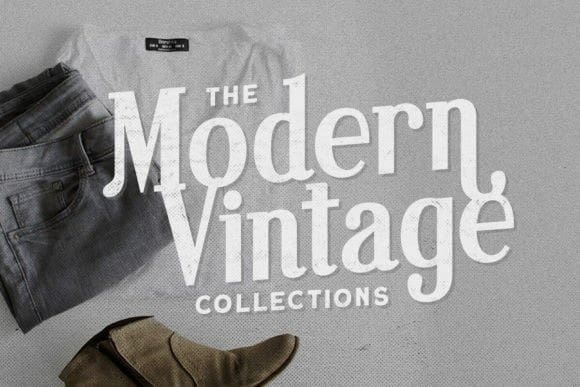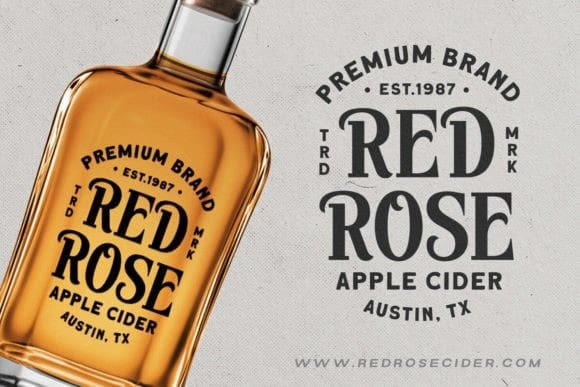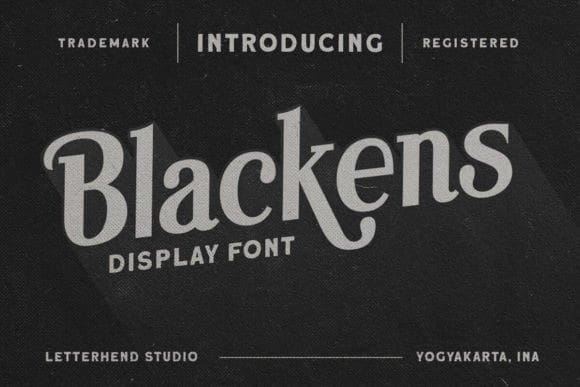
Blackens Font
Blackens Font – a display serif font. The stylistic uppercase make this font event more unique and stands out. This font perfectly made to be applied especially in logo, and the other various formal forms such as invitations, labels, logos, magazines, books, greeting / wedding cards, packaging, fashion, make up, stationery, novels, labels or any type of advertising purpose.